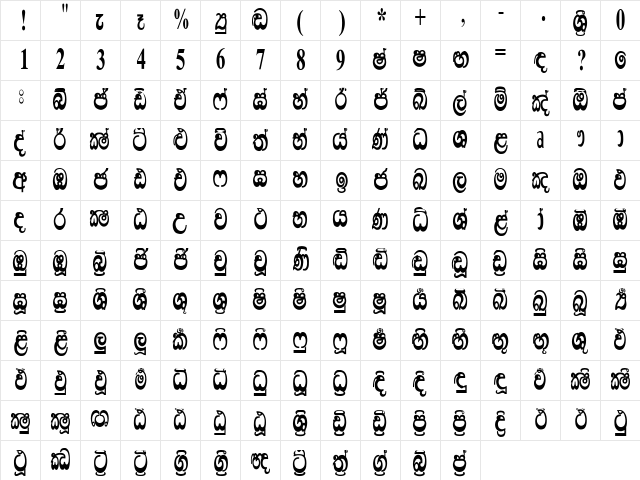
Lankanatha Suppliment Regular
Design Context for Lankanatha Suppliment Typeface
Lankanatha Suppliment takes a measured approach to typography — its balanced proportions and neutral character make it a reliable workhorse for both digital and print work.